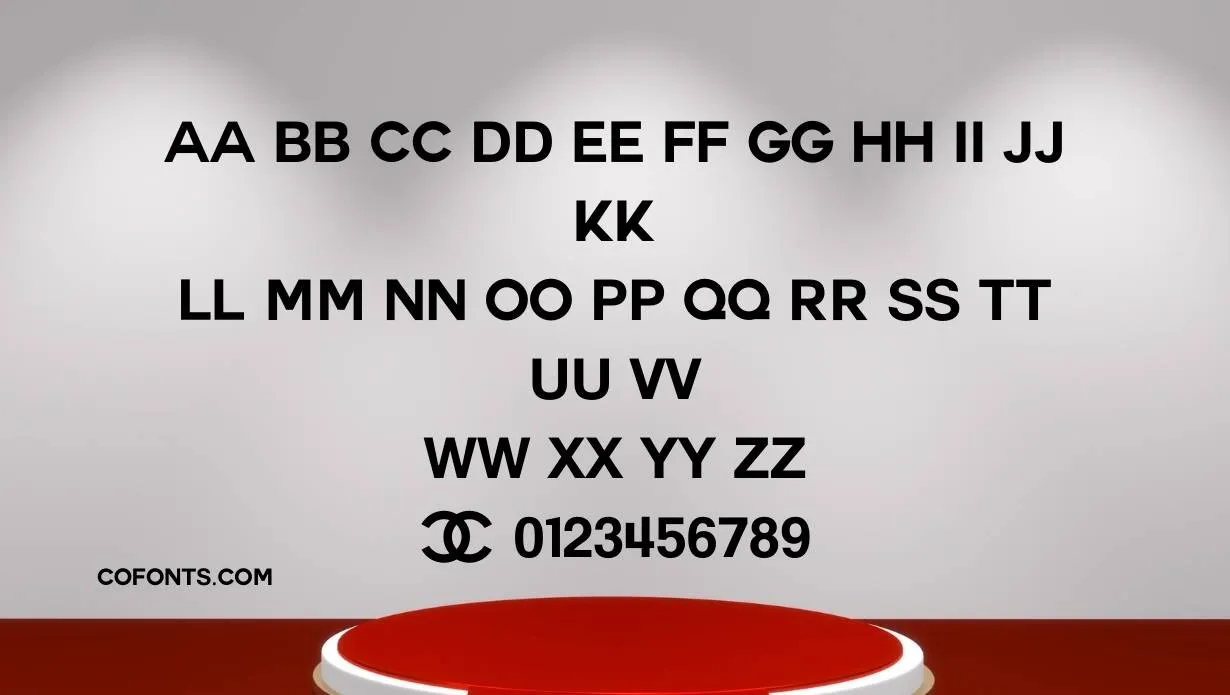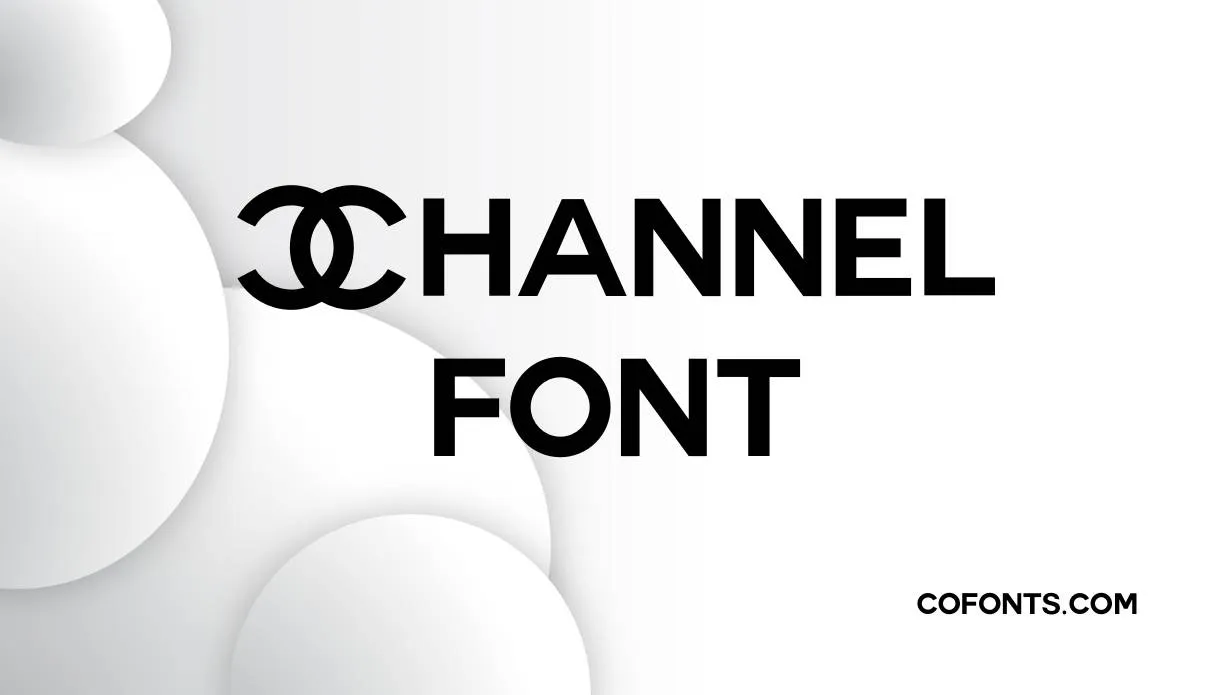
About Chanel Font Free Download
Chanel Font Free Download is a modern typeface available in multiple variants and styles.
- Chanel Font Regular
- Chanel Font Bold
- Chanel Font Italic